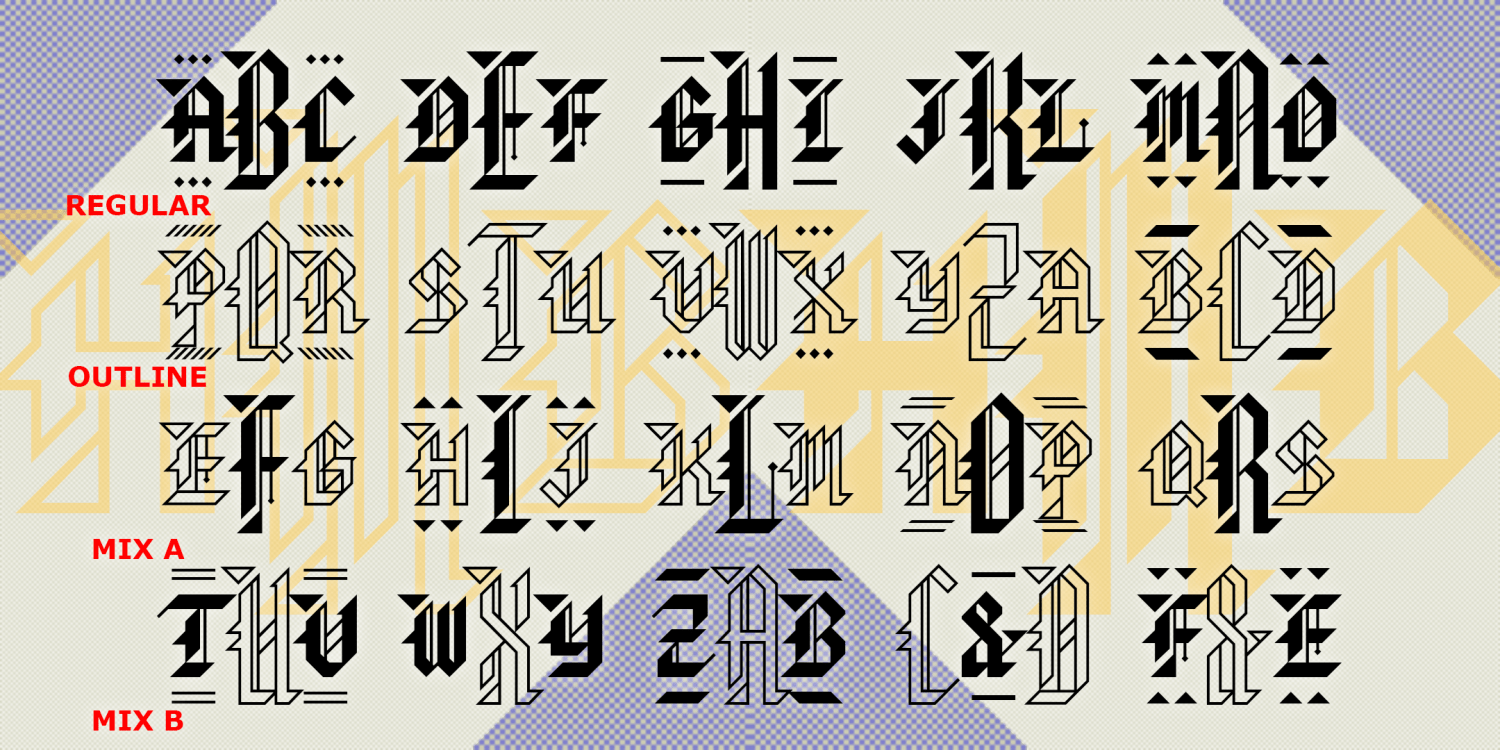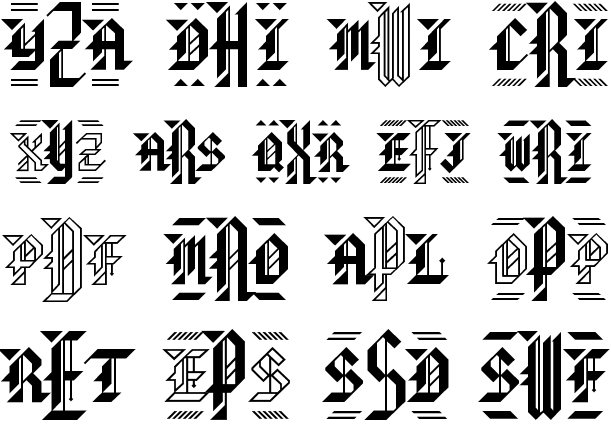
Baronial Monograms
The Baronial Monograms fonts are designed to create unique blackletter style monograms. Optional decorative elements tie in the smaller, outside letters. The letterforms were inspired by the analog font "American Text" as reproduced in a Dan X. Solo book I've redrawn the font with only 90- and 45-degree angles, and reshaped a number of other letters completely to fit the monogram format. This could be used as a matching titling font; large and small caps only.